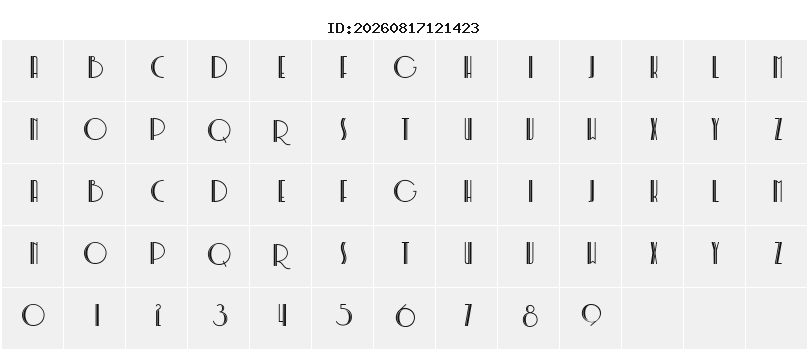
Soerjapoetera Doea Preview
• Font Name: Soerjapoetera Doea
• Full Font Name: Soerjapoetera Doea
About Soerjapoetera Doea.ttf
Soerjapoetera Doea.ttf is a modern, elegant sans-serif font designed for ultimate readability and visual harmony. Perfect for branding, headlines, web design, and print materials.